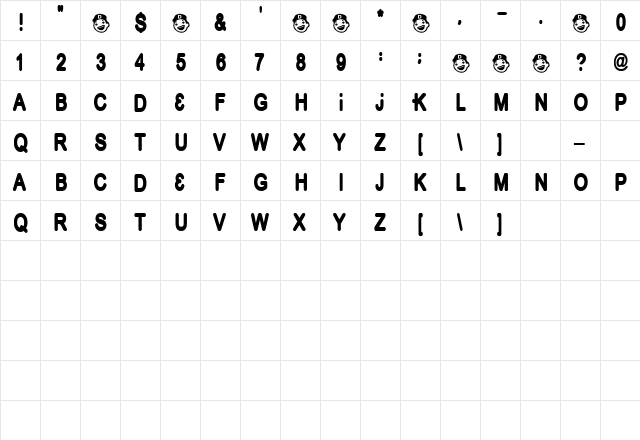
Kima Regular
Design Context for Kima Typeface
Kima offers clean, dependable letterforms without strong stylistic allegiance, making it a practical choice for designers who need flexibility.